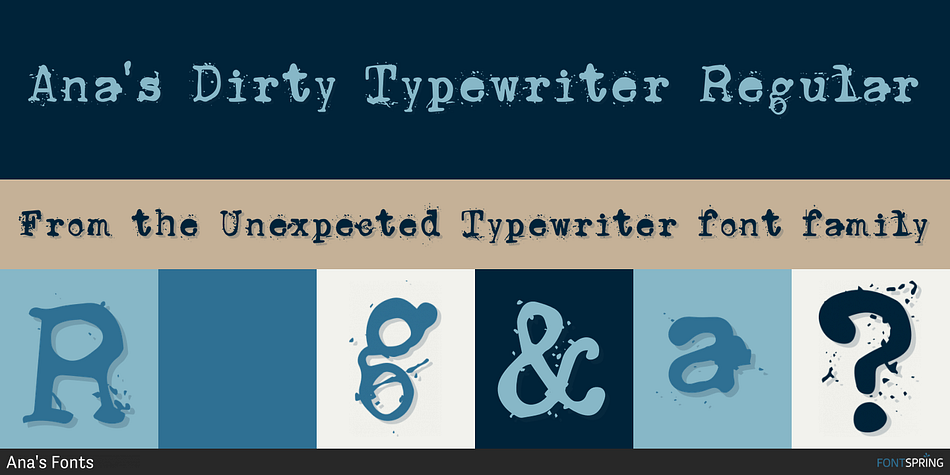
Ana's Dirty Typewriter Regular
Designed by Ana Parracho, Unexpected Typewriter is a grunge and typewriter font family. This typeface has four styles and was published by Ana's Fonts.
Meet Unexpected Typewriter!
A hand-drawn font based on an old Underwood typewriter, including:
- Rusty Typewriter
- 3 variations: Jumpy, Dirty and Faded Typewriter, ready to give your work that extra grungy, vintage look!
- A-Z | a-z | 0-9
- Punctuation & symbols
- Accents
Designer Ana Parracho